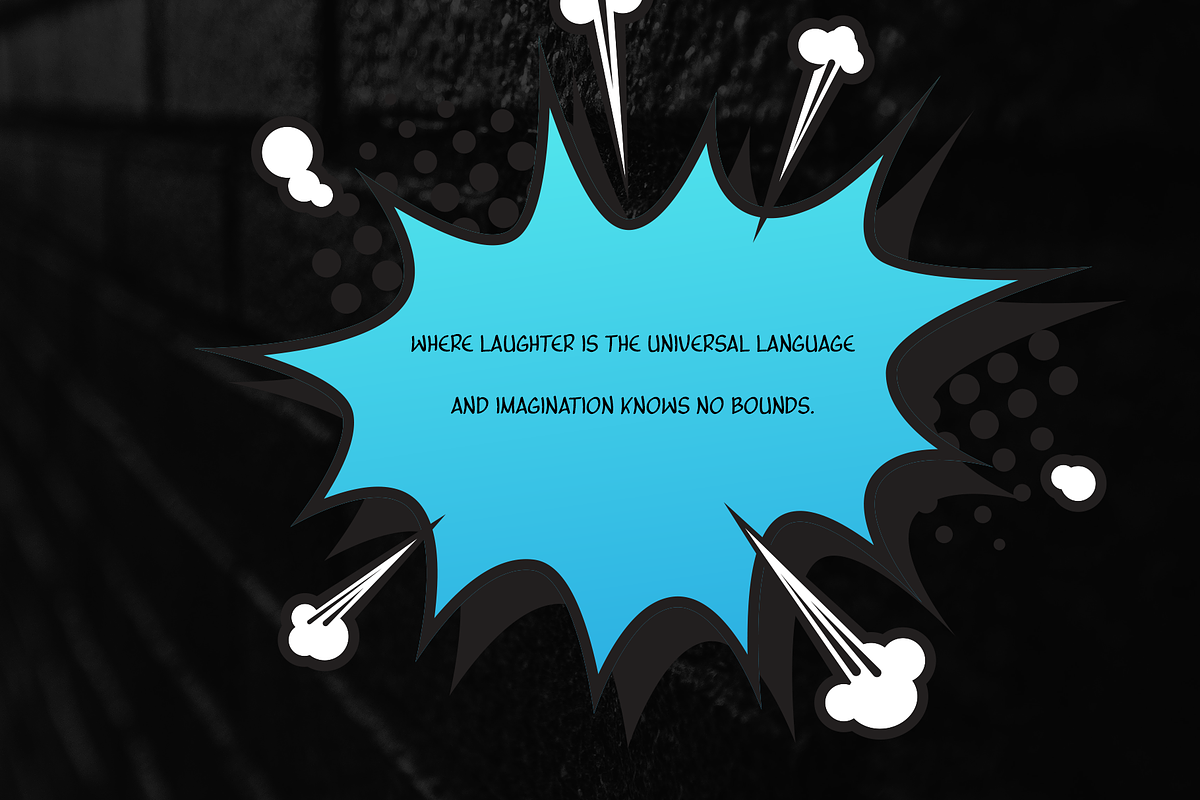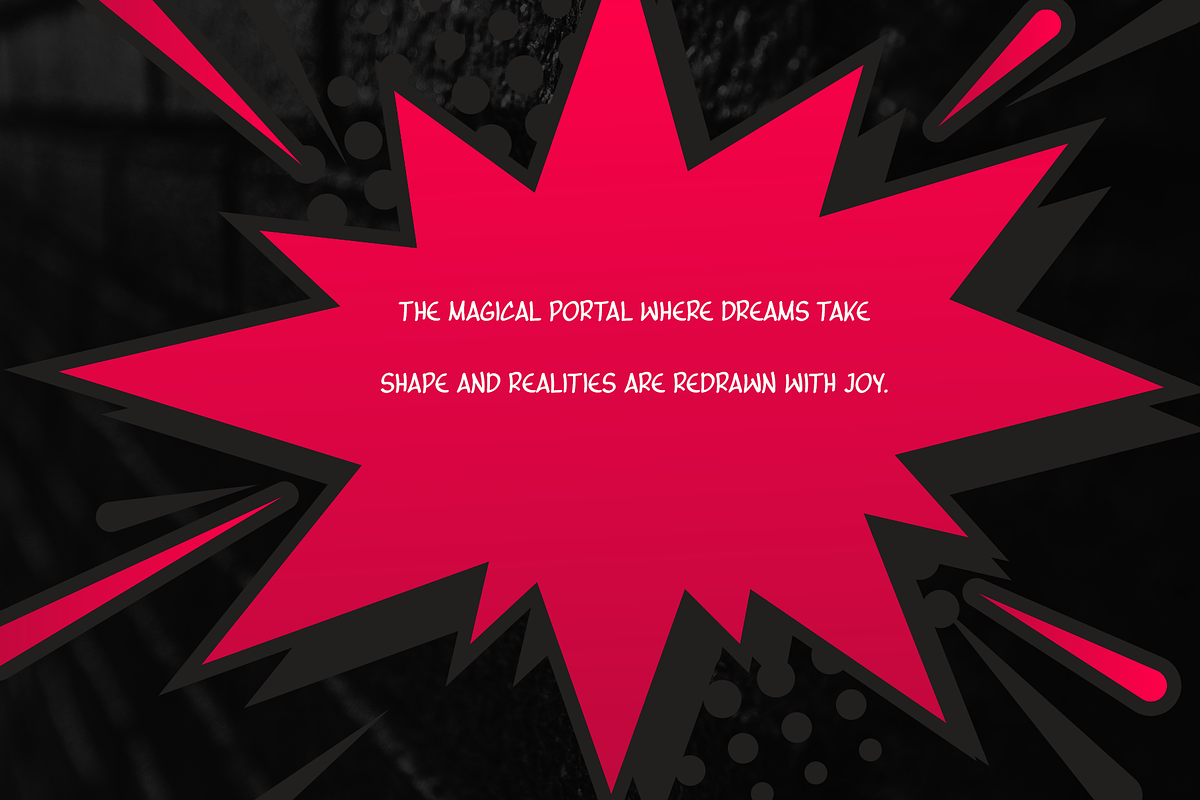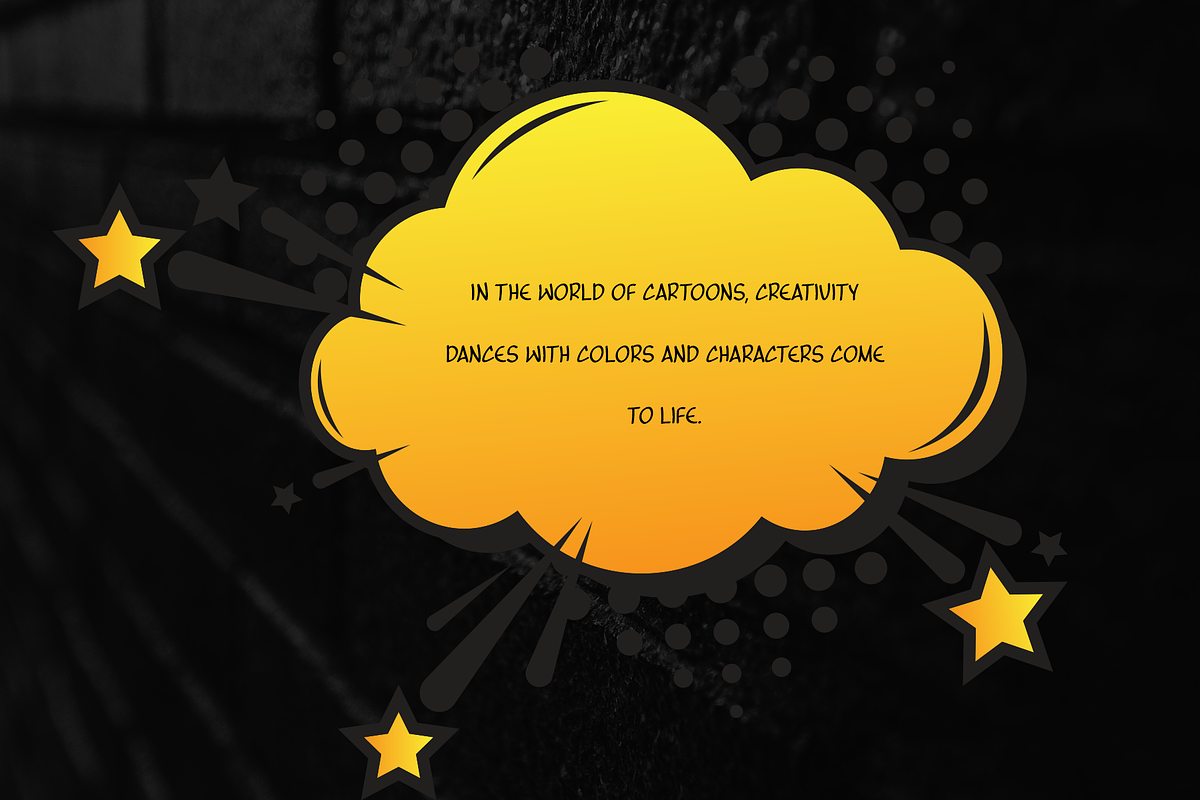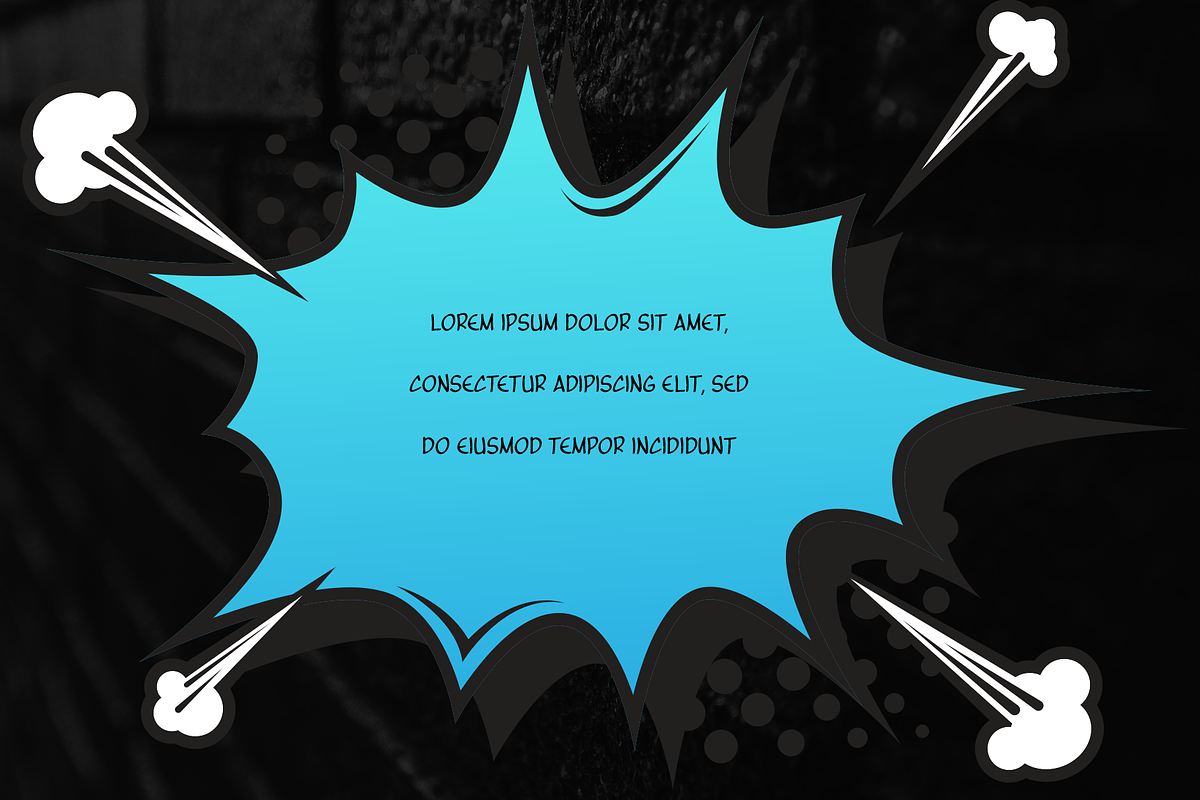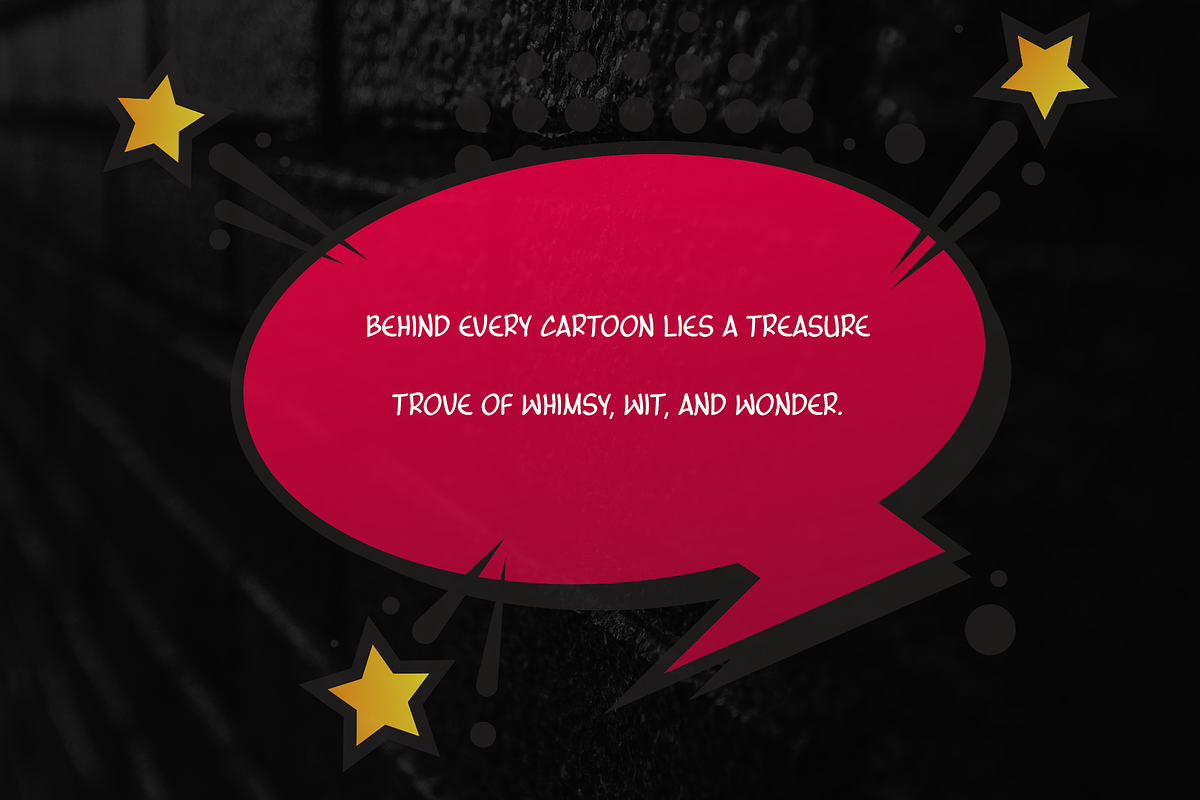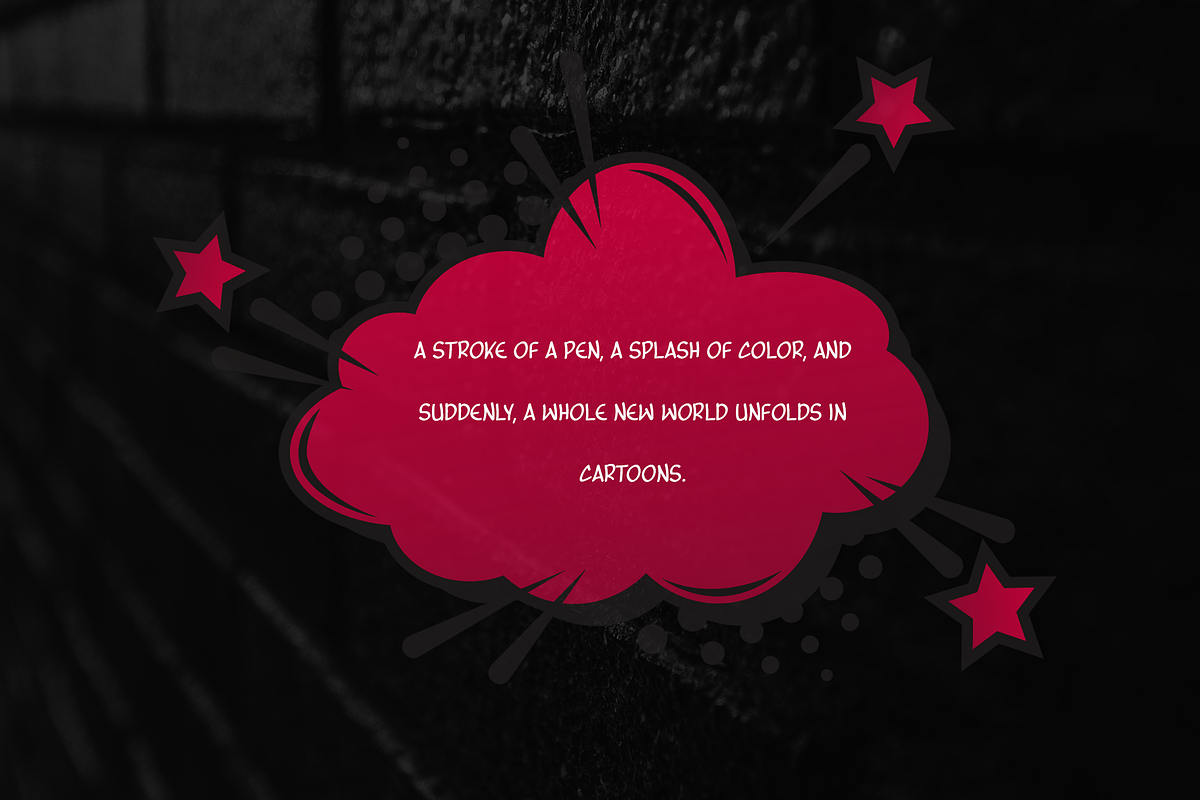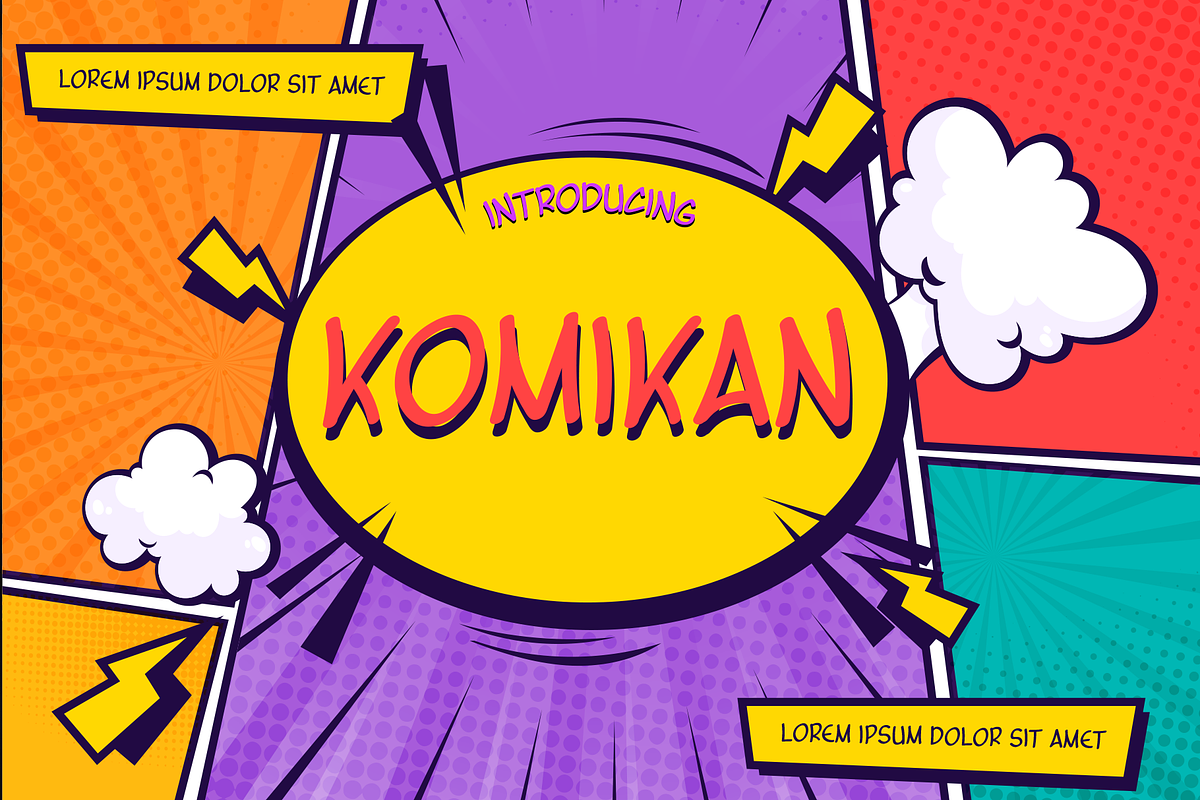
Komikan
Komikan is a handwriting font specifically designed for comic usage, characterized by its playful and expressive strokes reminiscent of hand-drawn lettering. The font exudes a sense of spontaneity and dynamism, capturing the energy often associated with comic book narratives. Its irregular lines and varying weights contribute to a lively and engaging appearance, perfect for conveying the personality of comic characters and adding emphasis to dialogue or sound effects.
The font's design features slightly exaggerated proportions and whimsical details, enhancing its visual appeal and ensuring readability even at smaller sizes. Komikan's letterforms maintain a balance between legibility and artistic flair, making it suitable for a wide range of comic genres and styles. Whether used for speech bubbles, captions, or onomatopoeic words, Komikan injects a sense of fun and authenticity into comic compositions, enhancing the overall storytelling experience.